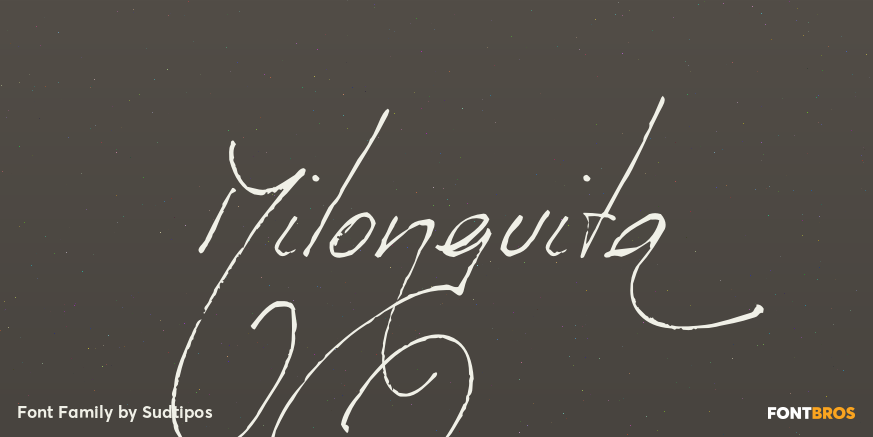
Milonguita
About Milonguita
Milonga is one of the most characteristic dances of Argentina and it is usually compared to Tango. Milonguita was designed so that readers can experience the passion and spontaneity of this dancing style through words. Users can play with the upwards…